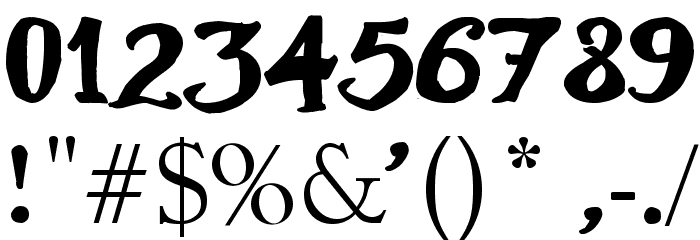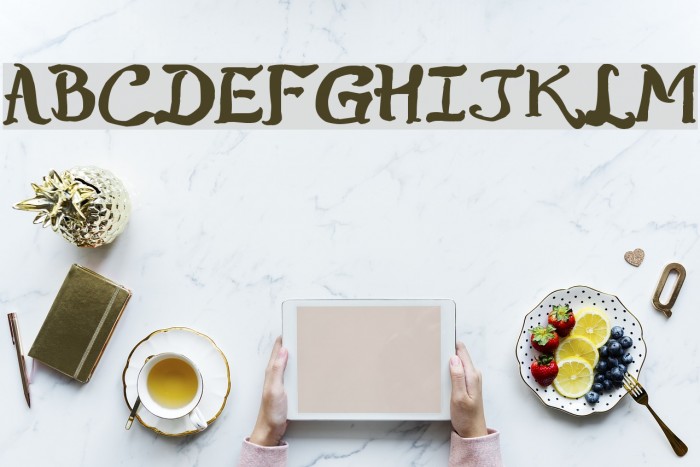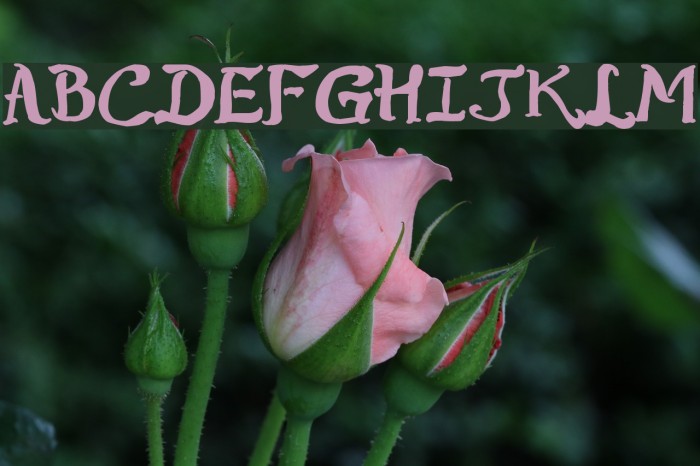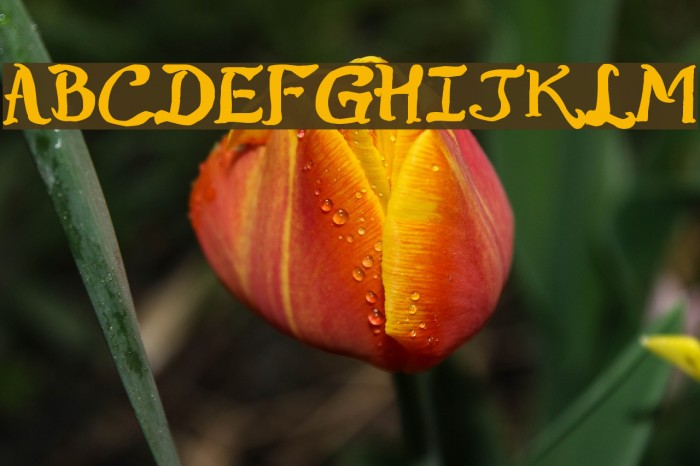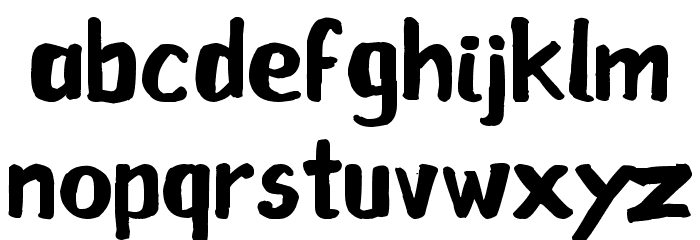
Raslens Shaa Abedossen Font
Raslens Shaa Abedossen Description
This font features a bold, expressive style with a hand-drawn appearance. The uppercase letters have a playful, slightly irregular form, giving them a dynamic and energetic feel. The lowercase letters maintain this lively character, with some strokes extending beyond the baseline, adding to the whimsical nature. The numerals are bold and consistent with the overall style, ensuring readability while maintaining the font's unique charm. Special characters are creatively designed, fitting seamlessly into the font's aesthetic. The font's overall look is both artistic and approachable, making it suitable for a variety of creative projects.
| Proposed Projects | Ideal for children's books, creative posters, branding for playful products, or any project needing a fun and artistic touch. |